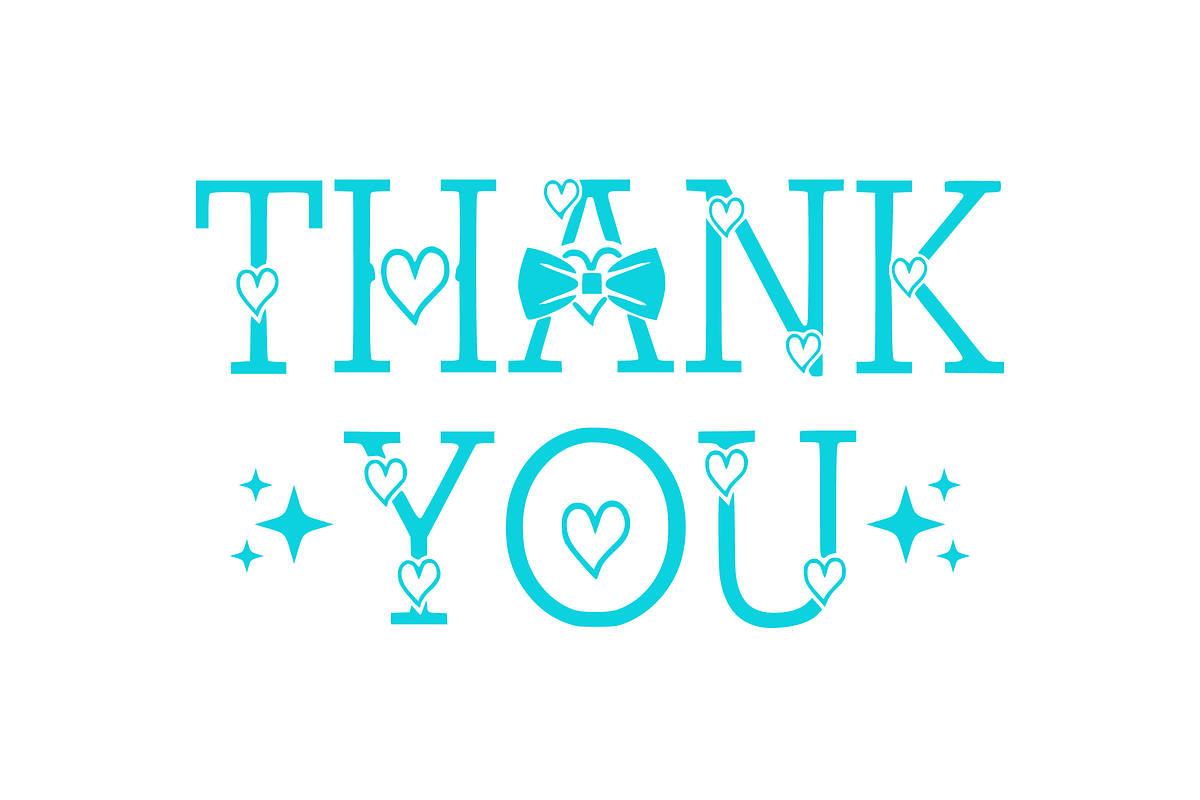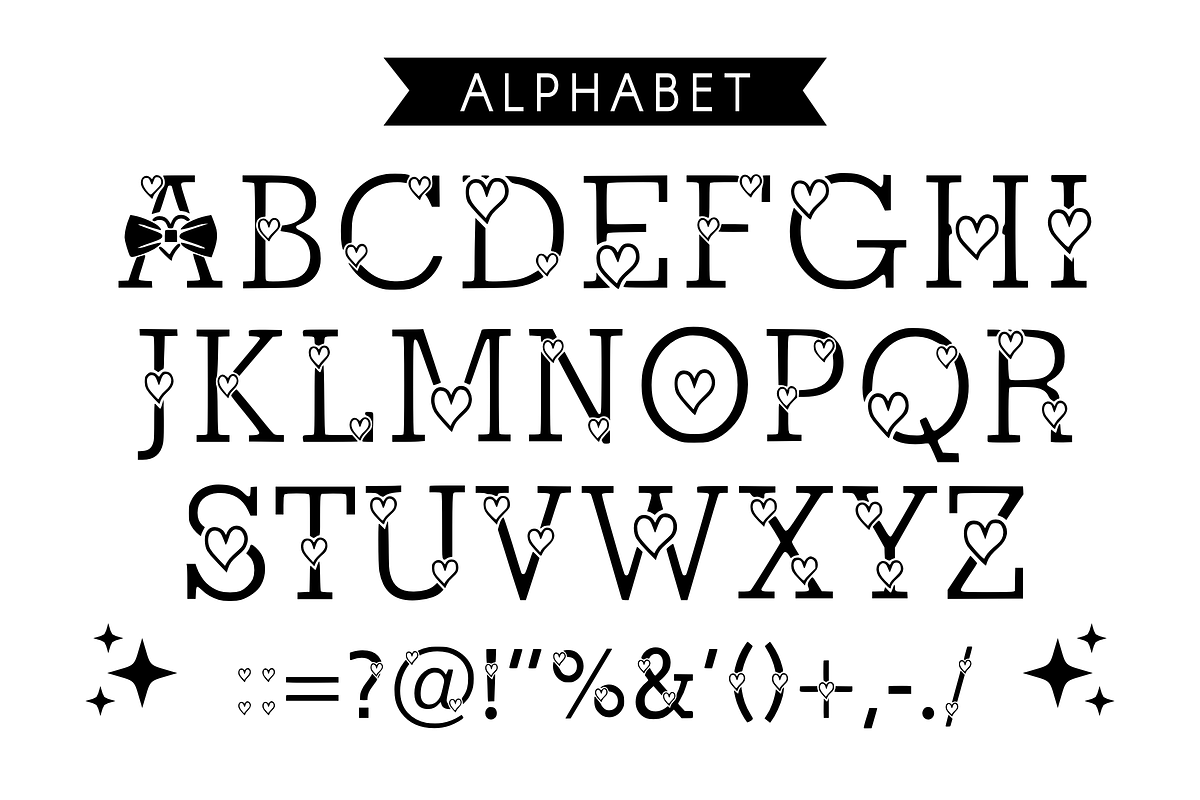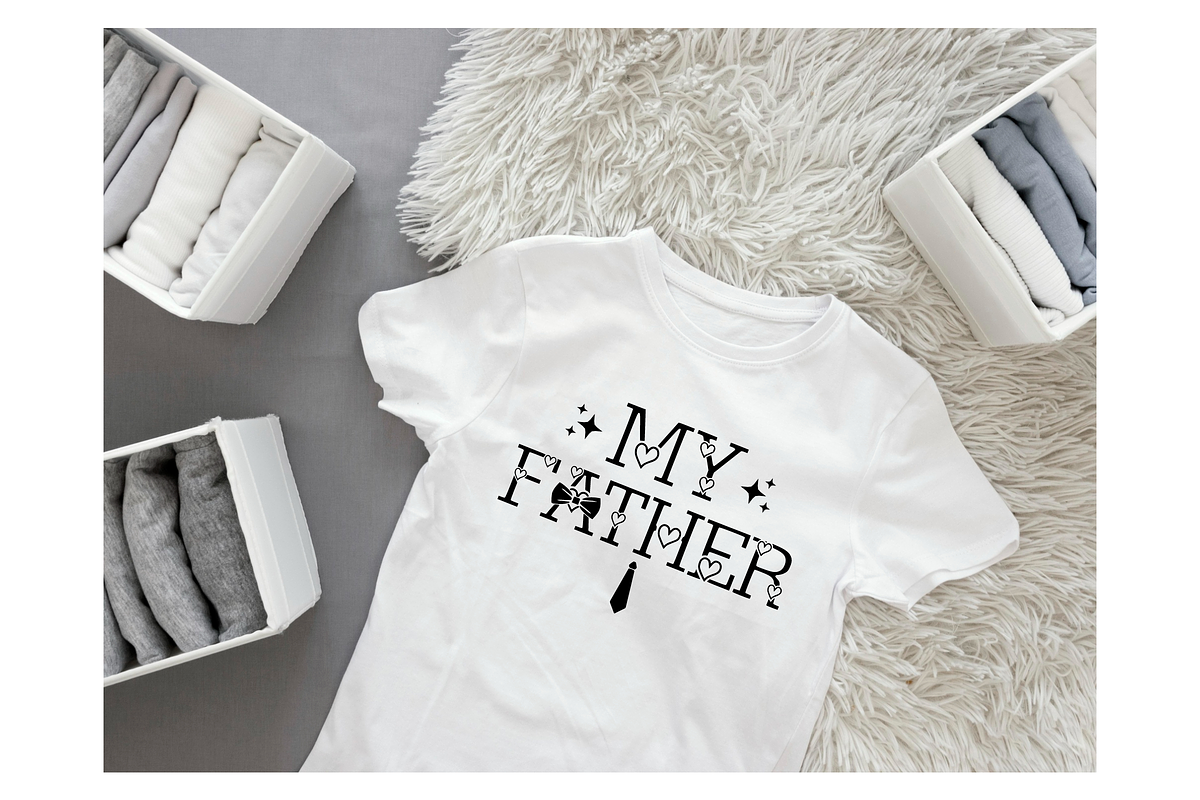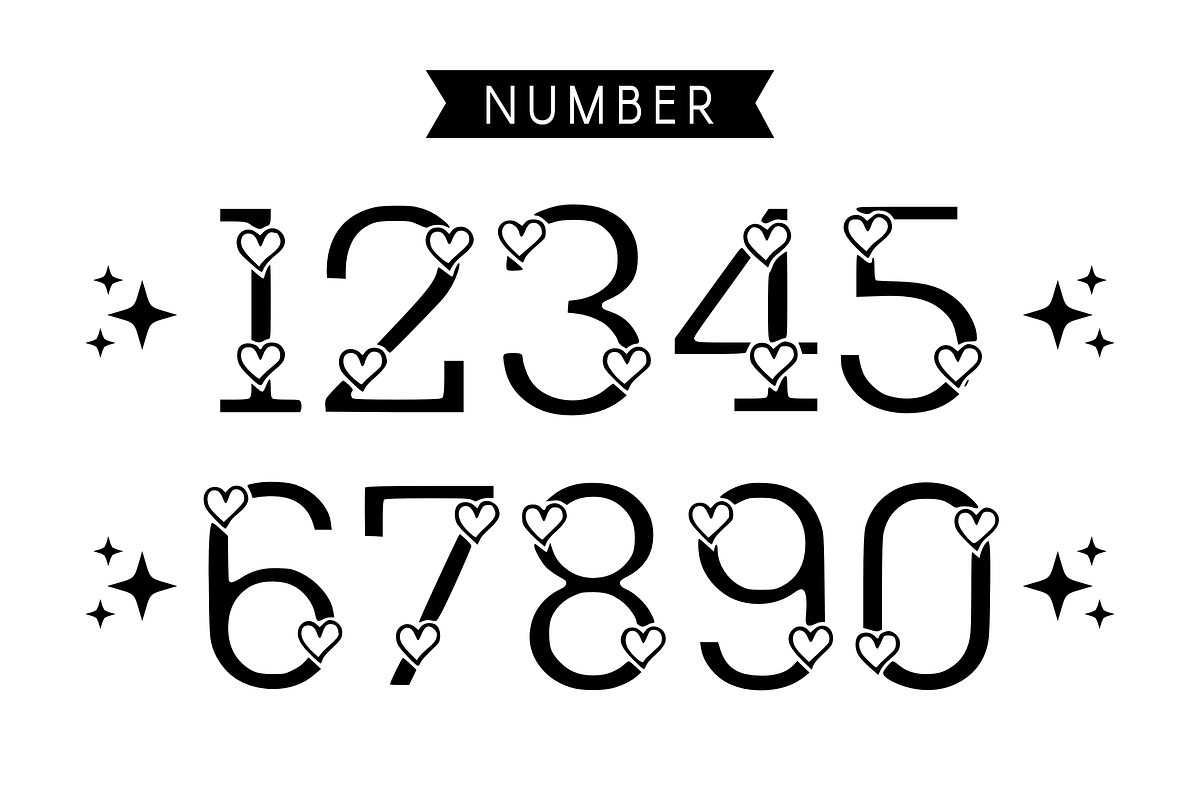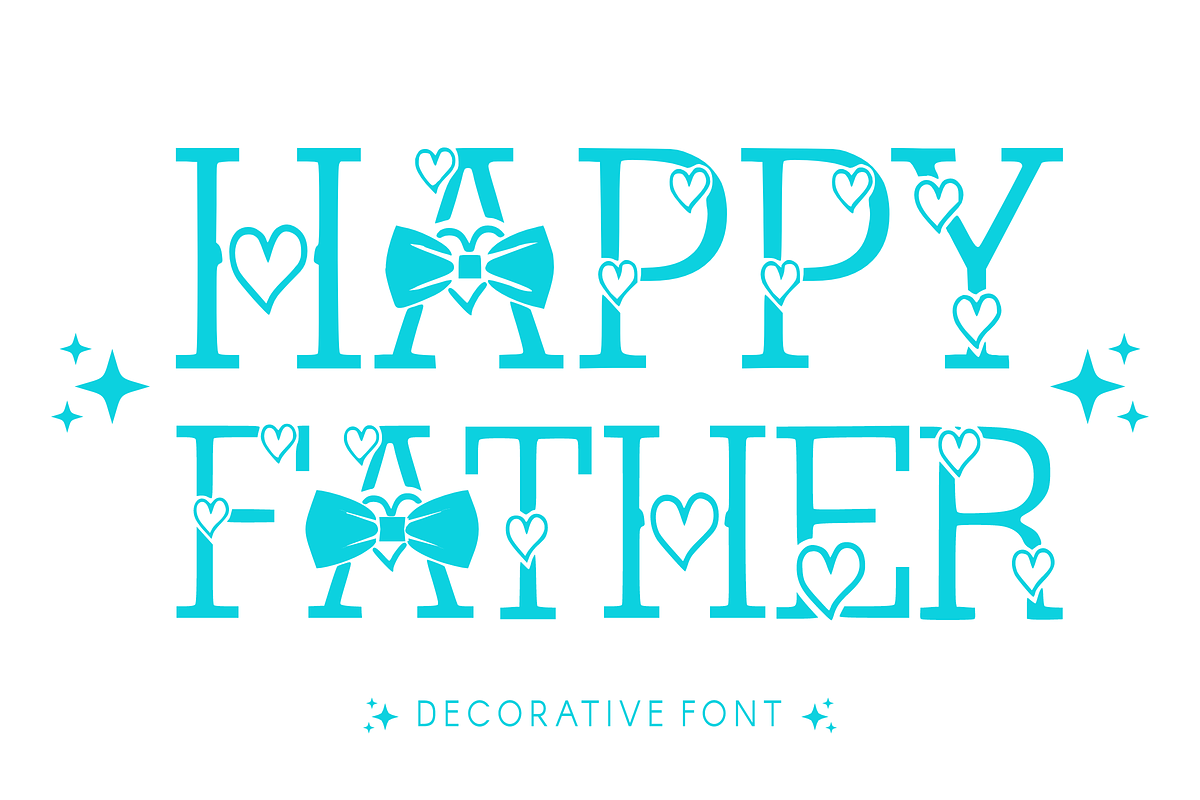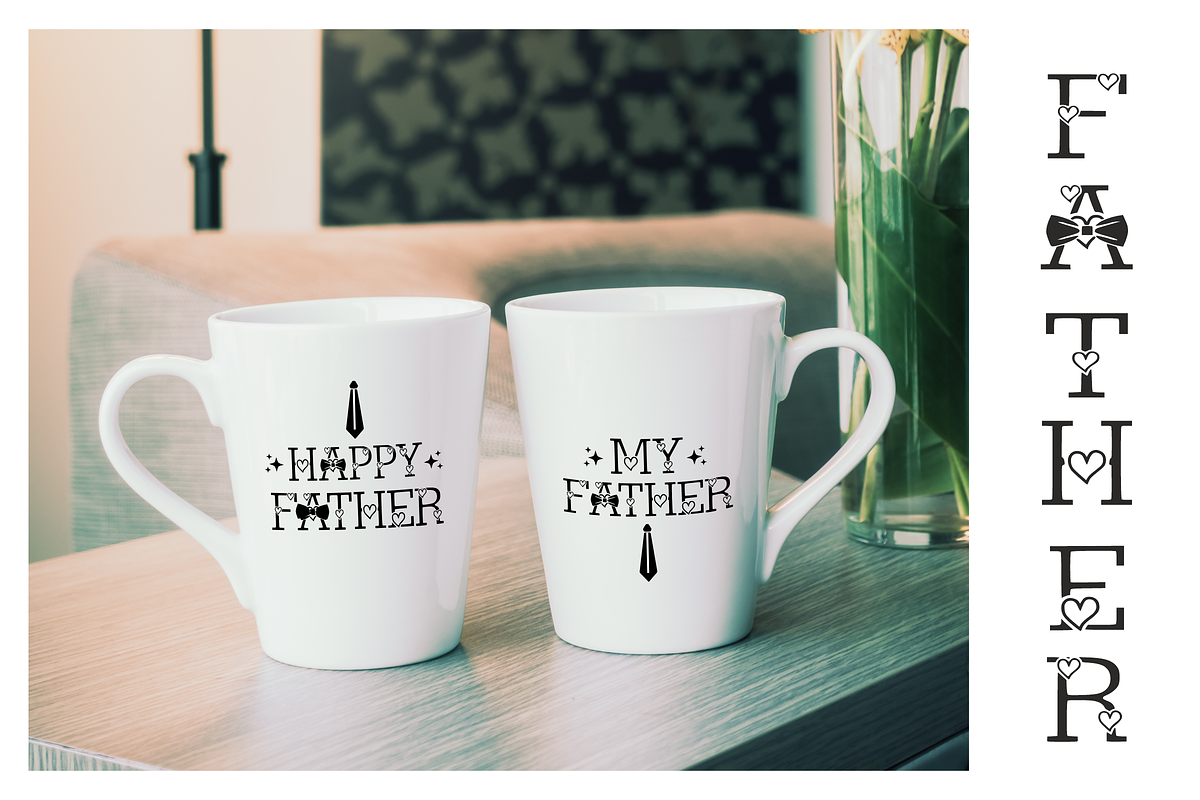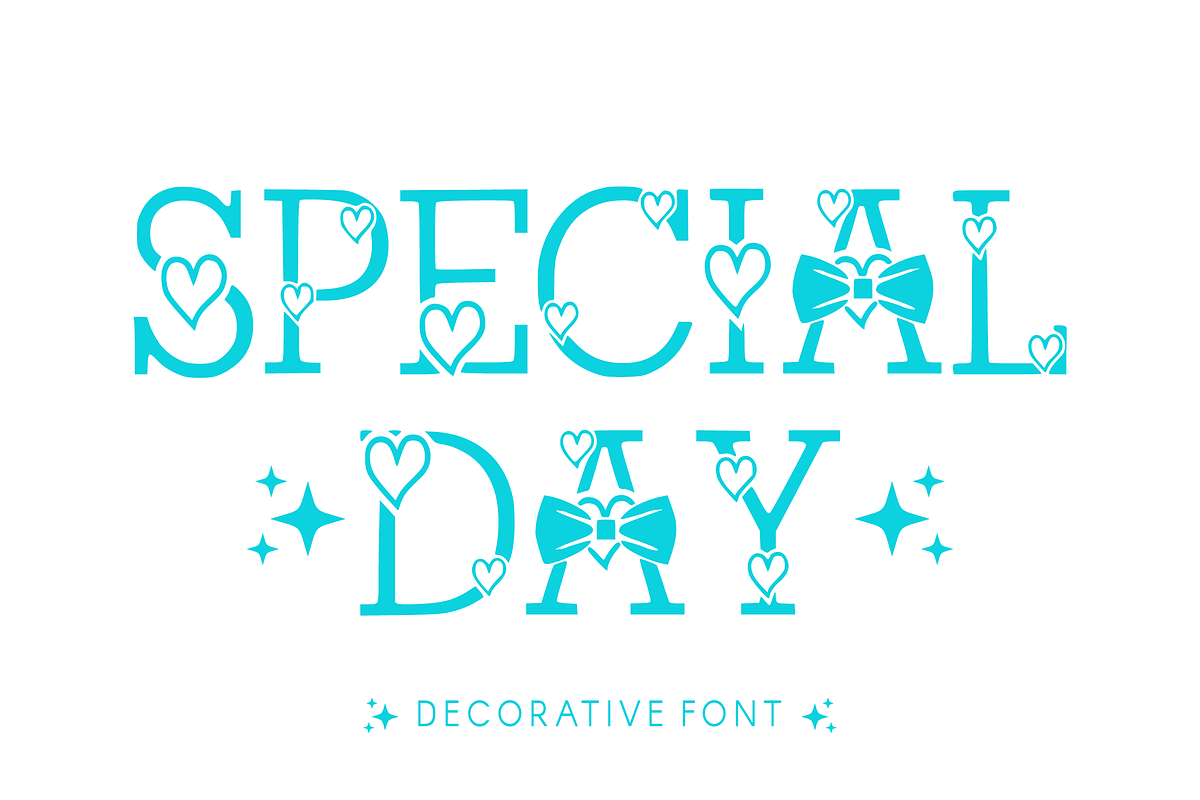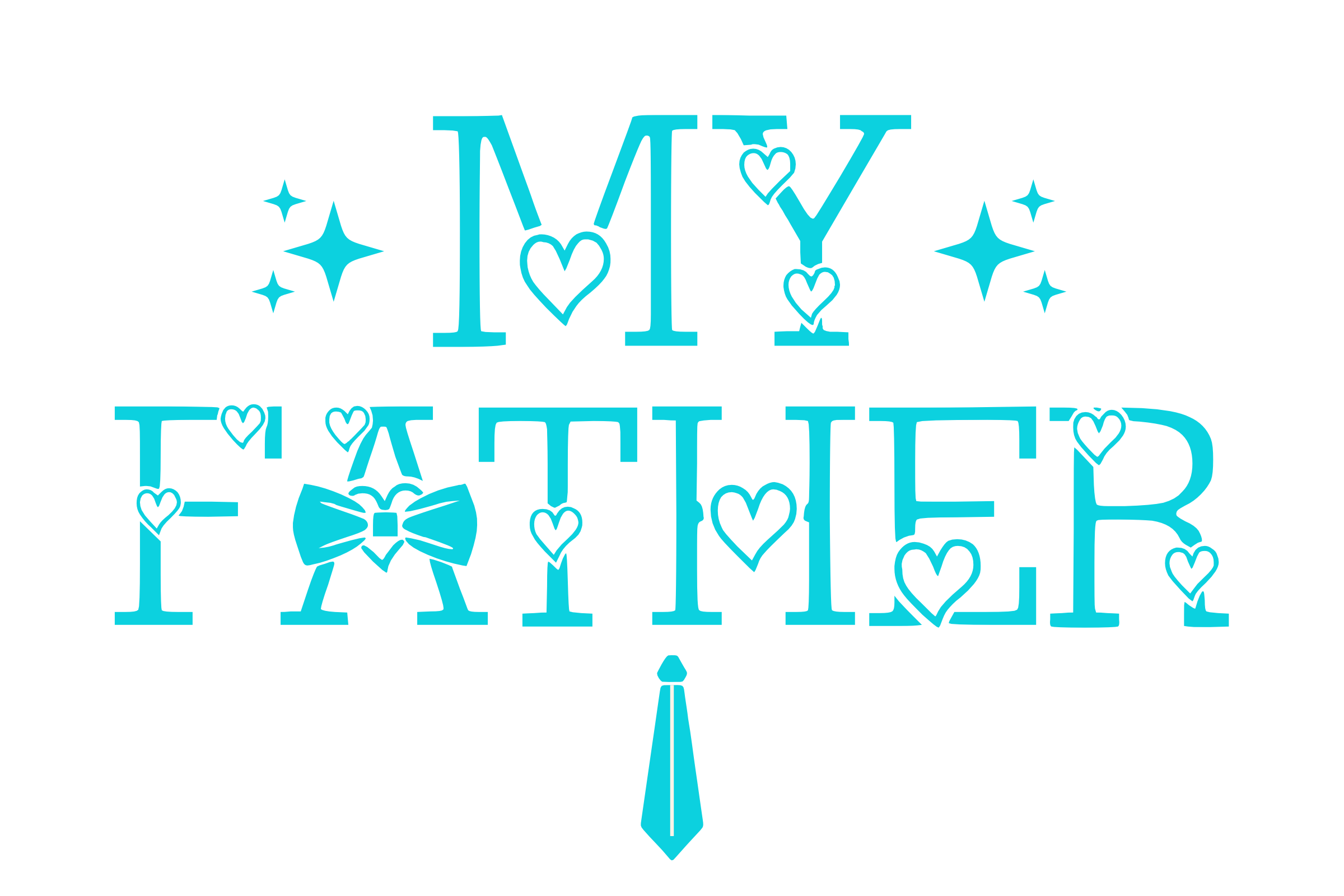
My Father - Father's Day Font Types
“Unveiling ‘My Father’, an inspired and dynamic font, crafted with a unique Father’s Day theme. Each character pulsates uniqueness, echoing the irreplaceable devotion of a father. This creation comes alive in a wide array of design fascinations – greeting cards, invites, coffee mugs, t-shirts, and beyond, infusing every piece with a touch of paternal warmth and affection.”